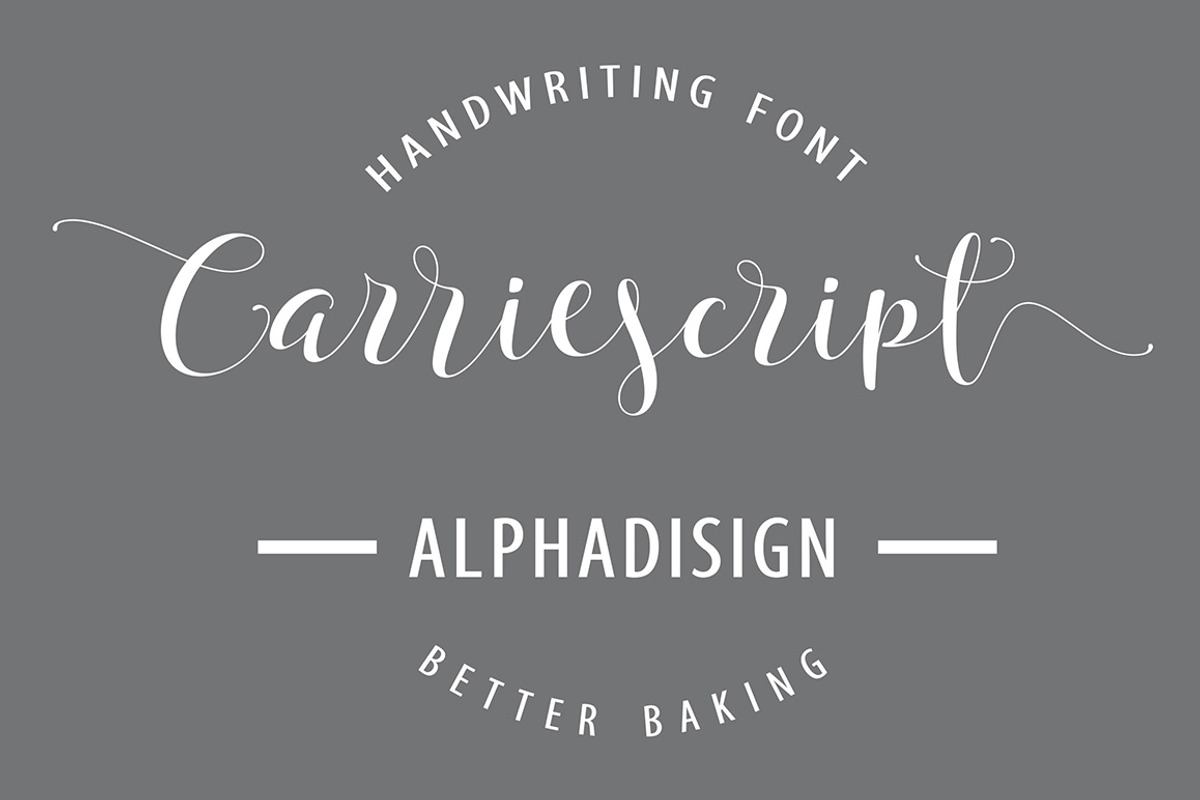
The Carriescript Fonts Script + Extras + San Free Download is a versatile and stylish font bundle that includes a script, extras, and sans serif fonts, offering a wide range of design possibilities. Featuring a beautiful, flowing script font, charming extras, and a clean sans serif style, this bundle is perfect for creating elegant branding, logos, invitations, posters, and more. Whether you’re working on a wedding project, luxury branding, or modern promotional materials, Carriescript brings flexibility and sophistication to your work.
Carriescript Fonts Script + Extras + San Free Download is ideal for designers looking to add both elegance and modern flair to their work. Perfect for upscale branding, event invitations, or creative projects, this font bundle will elevate your designs with its unique combination of styles. Download it today and enhance your creative projects with the chic design of Carriescript!